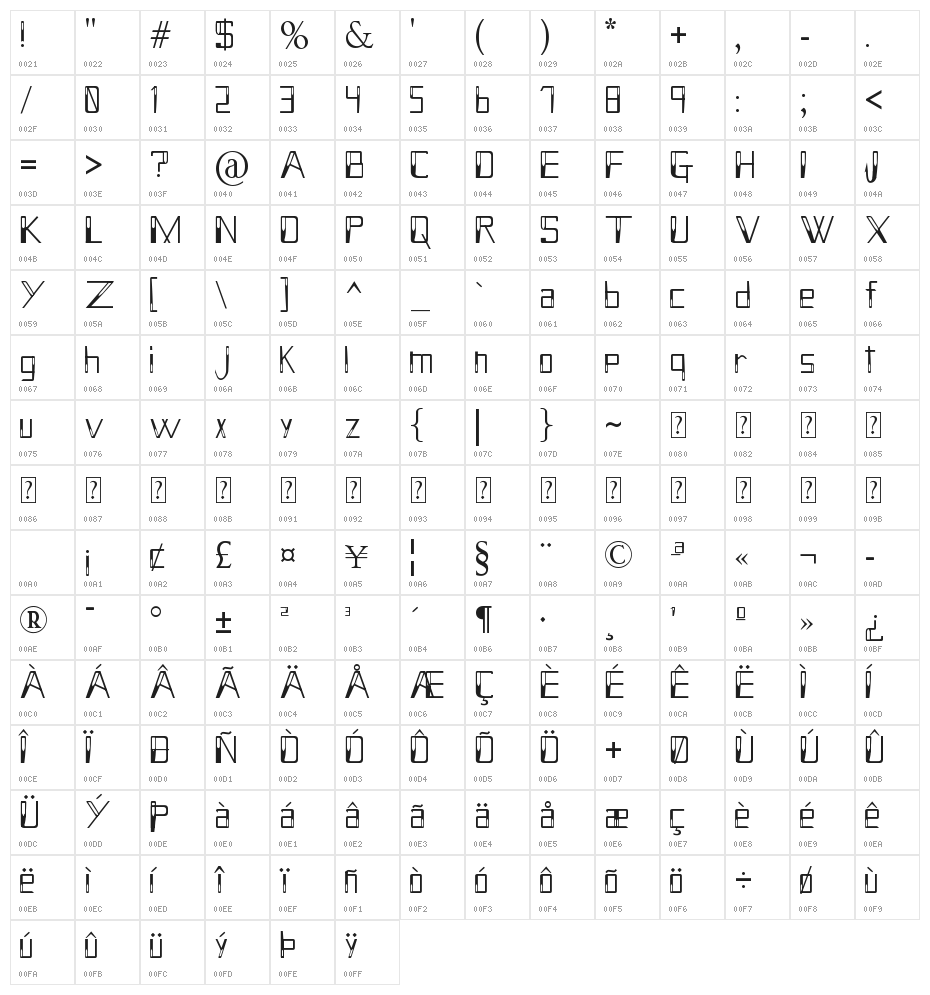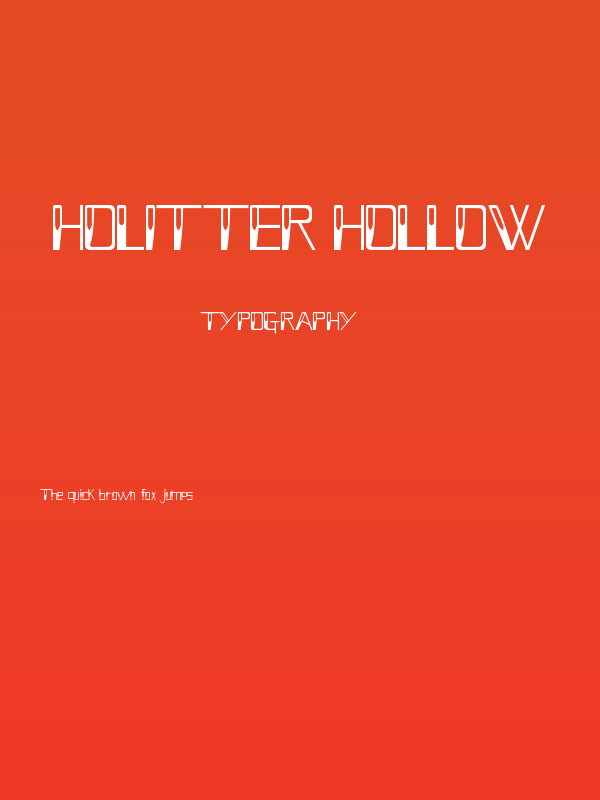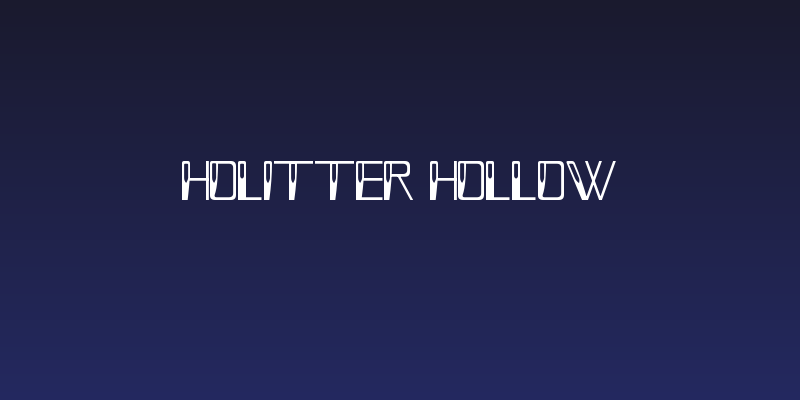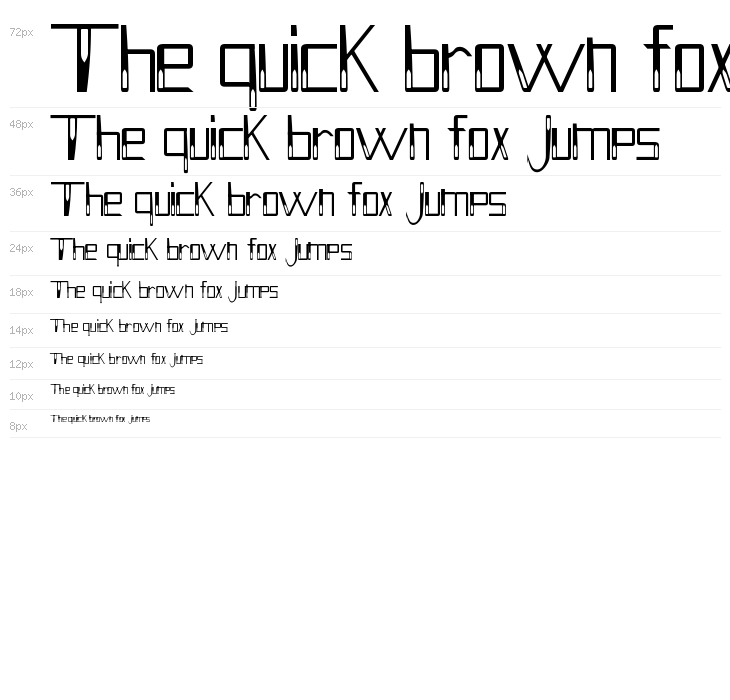
Holitter Hollow Font
Holitter Hollow Description
This font features a unique hollow design with a modern and futuristic aesthetic. The characters are constructed with a combination of thick and thin strokes, creating a high contrast that enhances readability while maintaining a distinct style. The uppercase and lowercase letters share a consistent geometric structure, with sharp angles and clean lines. The numerals and special characters follow the same design principles, ensuring uniformity across all glyphs. This font's hollow nature gives it a lightweight appearance, making it suitable for creative and artistic projects.
| Proposed Projects | Ideal for branding, posters, album covers, and digital media where a futuristic or artistic touch is desired. |